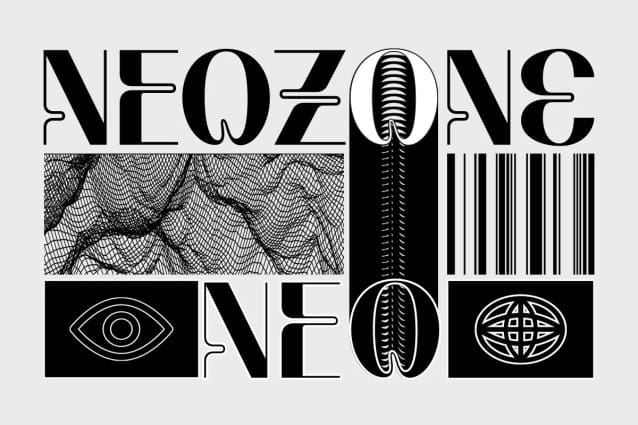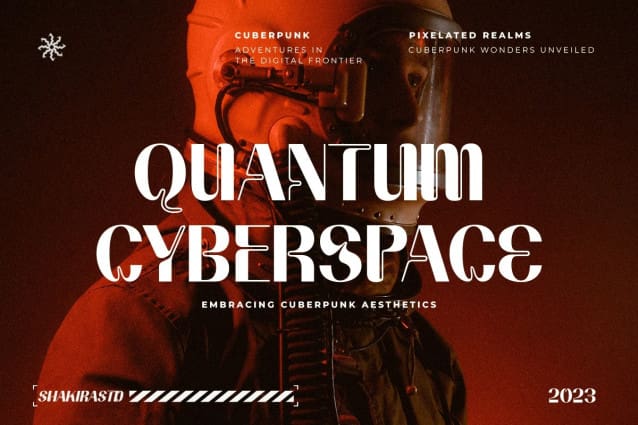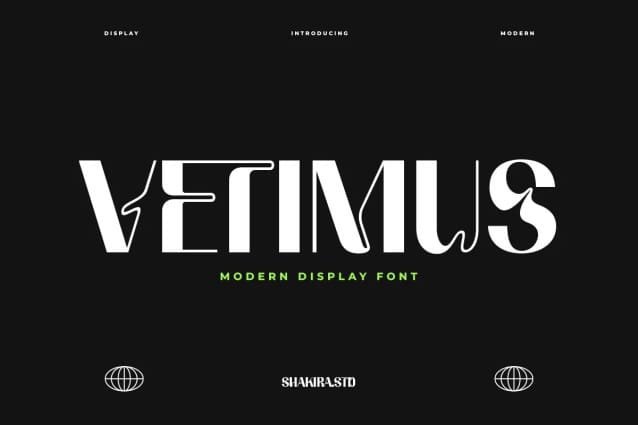
Vetimus Font
Vetimus Font, with sleek lines and captivating curves, Vetimus introduces a new era in type design. Perfect for logos, headlines, or any design that demands attention, this font embodies the essence of the current
Vetimus Font is not just a font; it’s a statement of contemporary design excellence. This modern display font is the epitome of #TypographyInnovation and #DesignSophistication, crafted for designers who crave a perfect blend of boldness and finesse.
Unleash the power of modernity in your designs with Vetimus, where every character is a testament to the bold and beautiful. Elevate your creative projects with the font that’s redefining display typography.